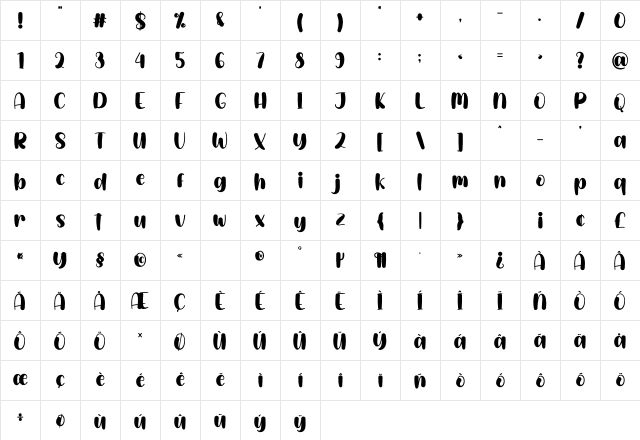
Wintering Ground Regular
Design Context for Wintering Ground
Wintering Ground softens its letterforms with rounded terminals, giving it an approachable, friendly quality that works well in consumer-facing and digital contexts.
Font Pairing: Pairs well with a rounded or humanist sans for body copy, maintaining the friendly tone without relying on Wintering Ground to carry extended reading.
Pro Tip: Use Wintering Ground for UI elements, app interfaces, and anywhere a friendly, approachable tone needs to be maintained without sacrificing clarity.